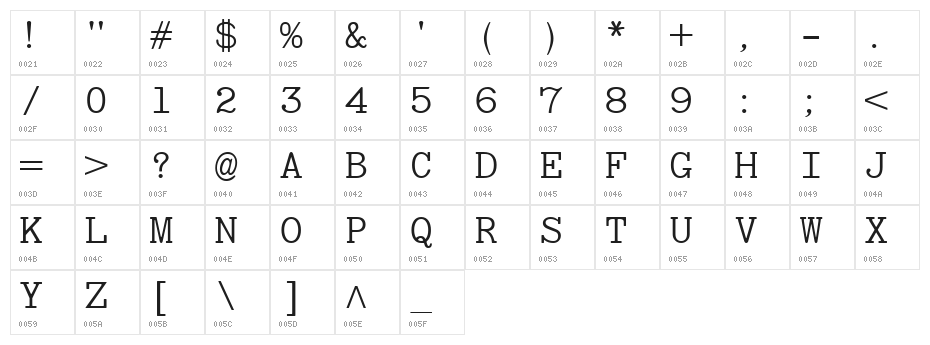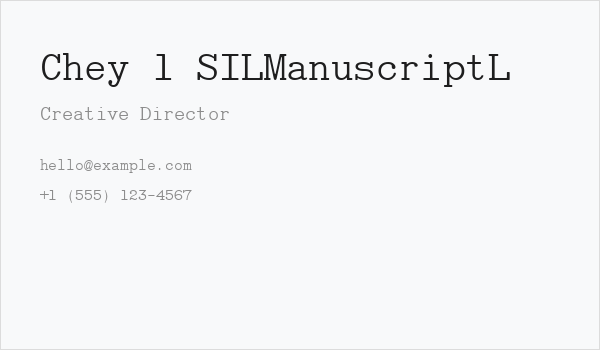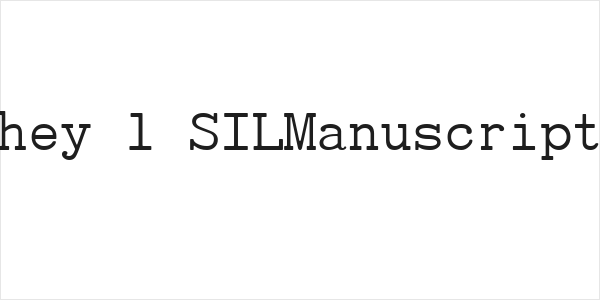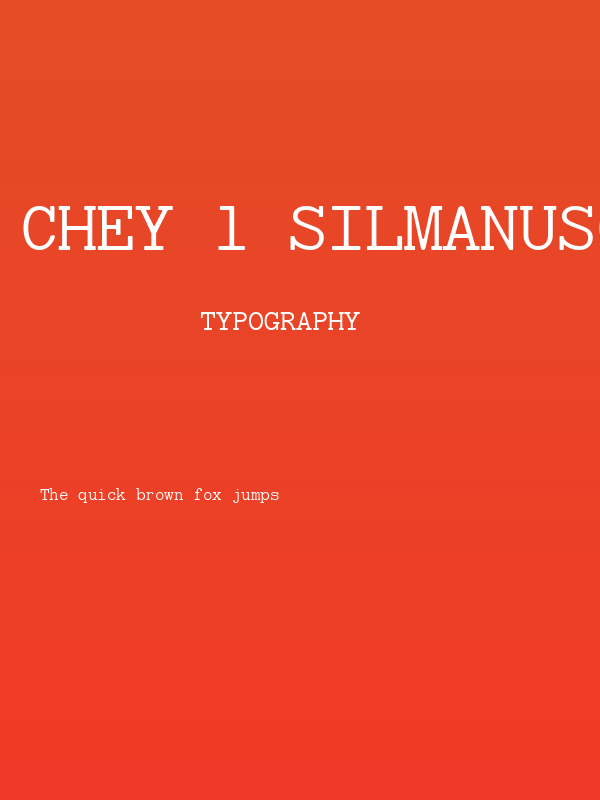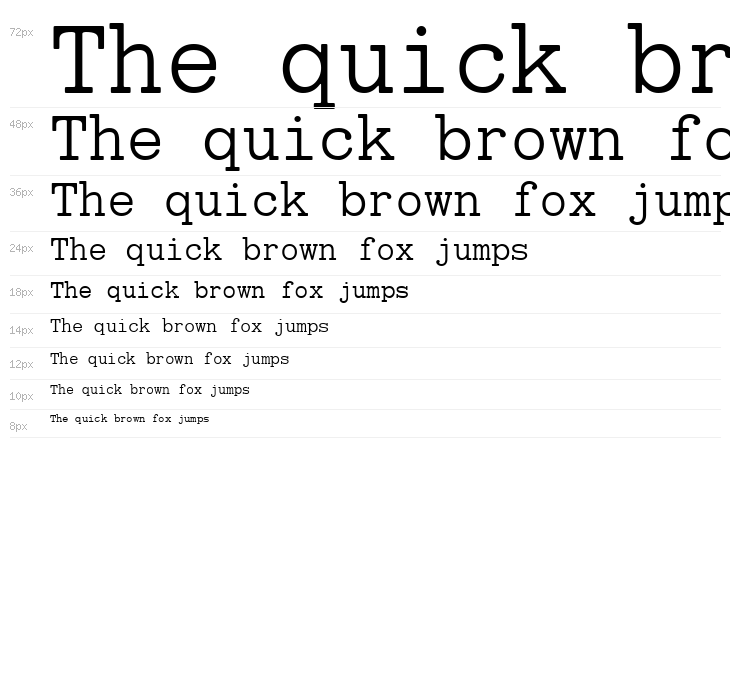
Chey 1 SILManuscriptL Font
Chey 1 SILManuscriptL Description
This font exhibits a classic and timeless serif style, characterized by its clean lines and balanced proportions. The uppercase letters are bold and commanding, while the lowercase letters maintain a consistent and harmonious flow. The numerals are clear and legible, making them suitable for a variety of applications. The special characters are well-defined, adding versatility to the font's use. Overall, this font combines traditional serif elements with a modern touch, making it suitable for both formal and contemporary designs.
Overall StyleClassic
Proposed ProjectsIdeal for editorial design, book covers, formal invitations, and branding projects that require a touch of elegance and tradition.